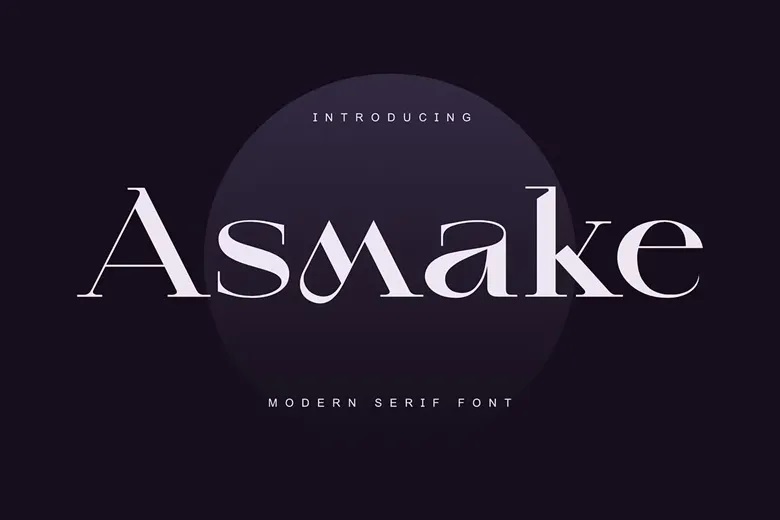
Asmake Font
Asmake is a modern serif font made for logos, editorial layouts, and branding projects. Its smooth curves and simple, timeless style give it a look that blends classic and modern design.
Asmake’s detailed serif features make it a good choice for packaging, magazines, branding, and lifestyle visuals. Each letter is made to be clear, consistent, and visually strong.
Asmake Serif Font